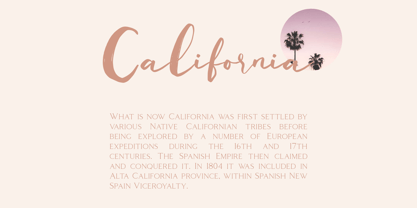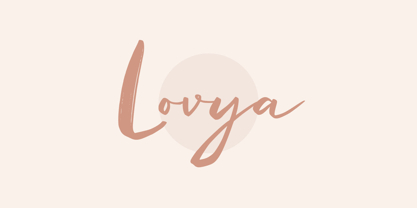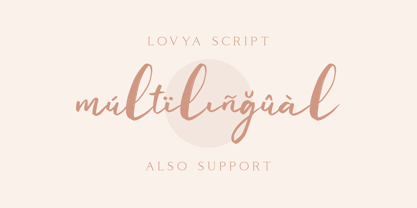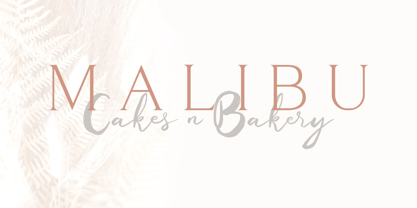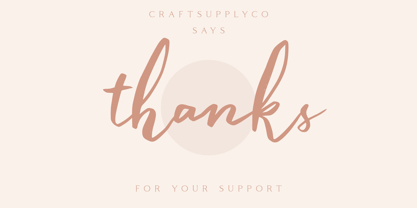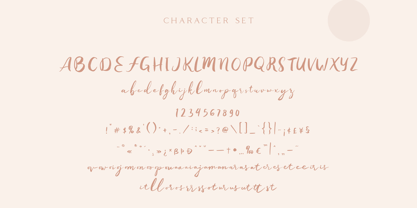
Lovya
by Craft Supply Co
The Lovya Font Family was designed by Trio Nazzar Saputra, Wahyu Hadi Yuana and published by Craft Supply Co. Lovya contains 2 styles and family package options. More about this family
Lovya – Natural Handwritten Script is an handwritten script font based on the expression of real handwriting. Lovya – Natural Handwritten Script will work perfectly for fashion, e-commerce brands, trend blogs, wedding boutiques or any business that wants to appear upscale and chic. Lovya – Natural Handwritten Script also Suitable for Logo, greeting cards, quotes, posters, branding, name card, stationary, design title, blog header, art quote, typography, art, modern envelope lettering or book design, craft design, any DIY project, book title, or any purpose to make your art/design project look pretty and trendy.
Designers: Trio Nazzar Saputra, Wahyu Hadi Yuana
Foundry: Craft Supply Co